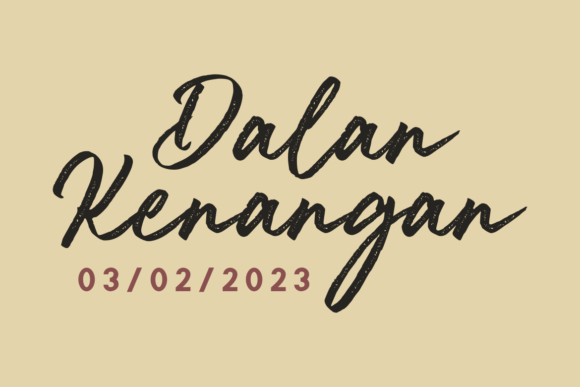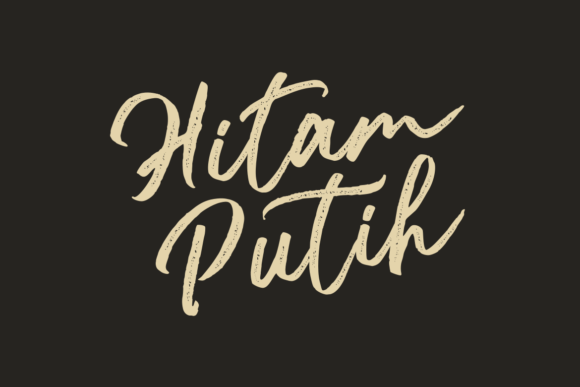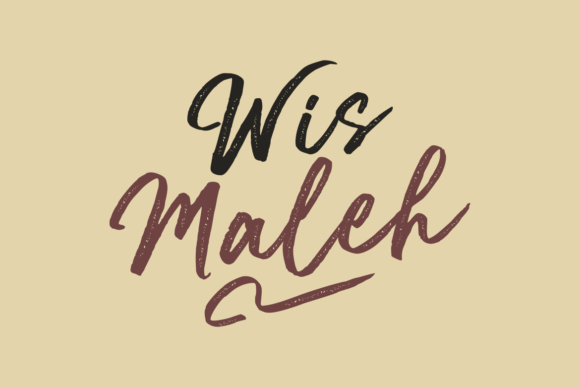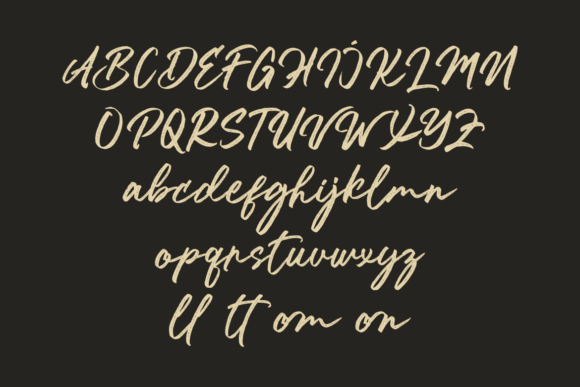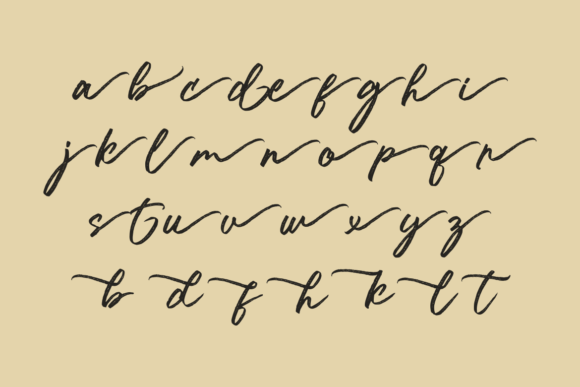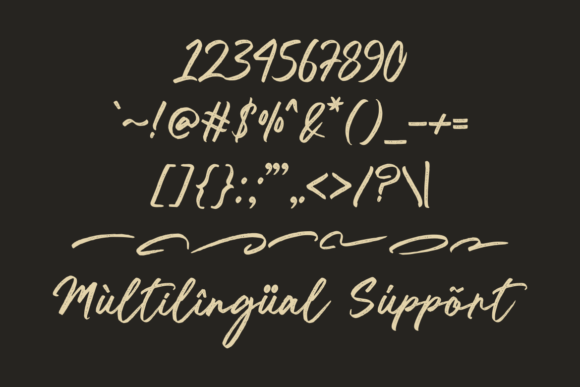
Discover the Unique Charm of Belik Font: A Handwritten Script Font with a Touch of Elegance
Are you a designer or crafter looking for a font that can add a touch of elegance and sophistication to your creative projects? Look no further than the Belik font, a beautiful handwritten script font that is sure to capture your imagination. In this article, we’ll take a closer look at the Belik font, its unique features, and how you can use it to elevate your designs.
What is Belik Font?
Belik is a stunning handwritten font that is inspired by the Javanese language. In Javanese, “Belik” means “water source,” which is reflected in the font’s unique design. Each letter in the Belik font features holes that resemble water holes, giving it a distinctive and eye-catching appearance.
Unique Features of Belik Font
The Belik font boasts several unique features that make it stand out from other script fonts. Some of its key characteristics include:
- Handwritten script font with a natural, fluid feel
- Unique holes in each letter, inspired by the Javanese language
- Elegant and sophisticated appearance, perfect for high-end designs
- Versatile and adaptable, suitable for a wide range of creative projects
Uses for Belik Font
The Belik font is incredibly versatile and can be used for a variety of creative projects. Here are some ideas to get you started:
- Titles and Headings: Use Belik to create stunning titles and headings for your blog posts, articles, and website pages.
- Banners and Posters: Add a touch of elegance to your banners and posters with the Belik font.
- Branding and Packaging: Use Belik to create unique and memorable branding and packaging for your products.
- Quotes and Inspirational Messages: Add a touch of sophistication to your quotes and inspirational messages with the Belik font.
- Book Covers and Magazines: Use Belik to create eye-catching book covers and magazine titles.
Why Choose Belik Font?
So why choose the Belik font for your creative projects? Here are just a few reasons:
- Unique and Eye-Catching: The Belik font is unlike any other script font you’ll find. Its unique holes and elegant appearance make it a standout choice.
- High-Quality Design: The Belik font is designed with high-quality craftsmanship in mind, ensuring that it looks great in any context.
- Easy to Read: Despite its elegant appearance, the Belik font is easy to read and understand, making it perfect for body text and captions.
- Versatile: The Belik font can be used for a wide range of creative projects, from titles and headings to body text and captions.
Tips for Using Belik Font
Here are a few tips for getting the most out of the Belik font:
- Use it Sparingly: Because of its unique design, it’s best to use the Belik font sparingly to avoid overwhelming your designs.
- Pair it with Other Fonts: Experiment with pairing Belik with other fonts to create a unique and eye-catching combination.
- Adjust the Size and Color: Play around with different sizes and colors to find the perfect combination for your design.
The Belik font is a beautiful and unique handwritten script font that is sure to add a touch of elegance and sophistication to your creative projects. With its distinctive holes and elegant appearance, Belik is perfect for designers and crafters looking to create high-end designs. Whether you’re working on a title, banner, branding project, or book cover, the Belik font is a versatile and adaptable choice that’s sure to impress.